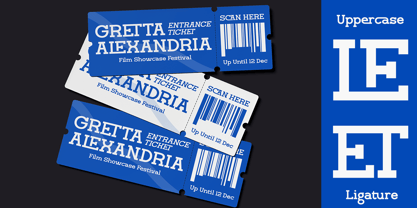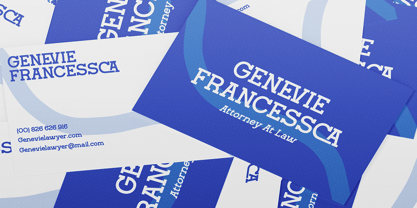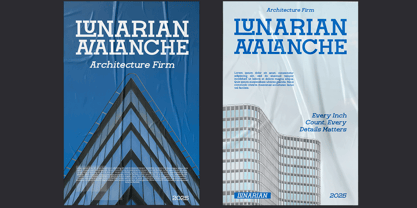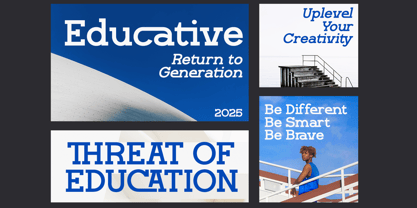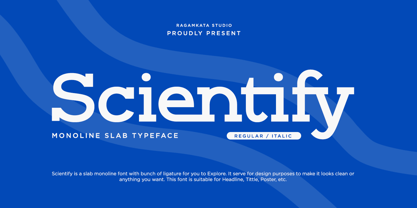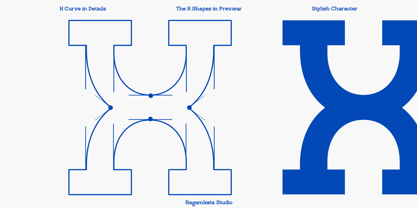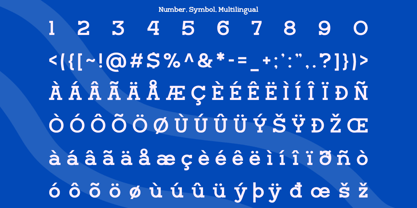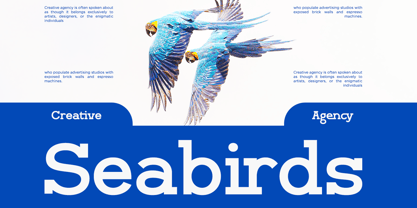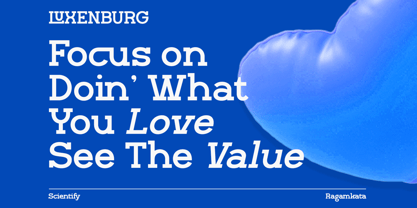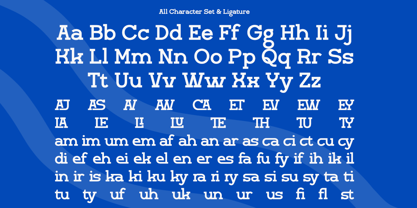
Scientify
by RagamKata
The Scientify Font Family was designed by Yogiswhara Dio Prakoso Riadi and published by RagamKata. Scientify contains 2 styles and family package options. More about this family
Scientify blends vintage character with modern confidence, making it an excellent option for headlines, branding, logos, packaging, and editorial layouts. Its sturdy build and bold display are designed to create a memorable visual impact. The strong slab serifs and striking letterforms of Scientify deliver a powerful presence and unique personality to any project. Whether you’re crafting fashion pieces, lifestyle visuals, or daring artistic designs, this slab serif provides versatility and unmistakable style. Whats Included : - Scientify Regular - Scientify Italic - Uppercase & Lowercase Character - Ligature Set ( Uppercase & Lowercase ) - Number, and Symbol - Multilingual Support Thanks, Have a weonderful day Ragamkata Studio